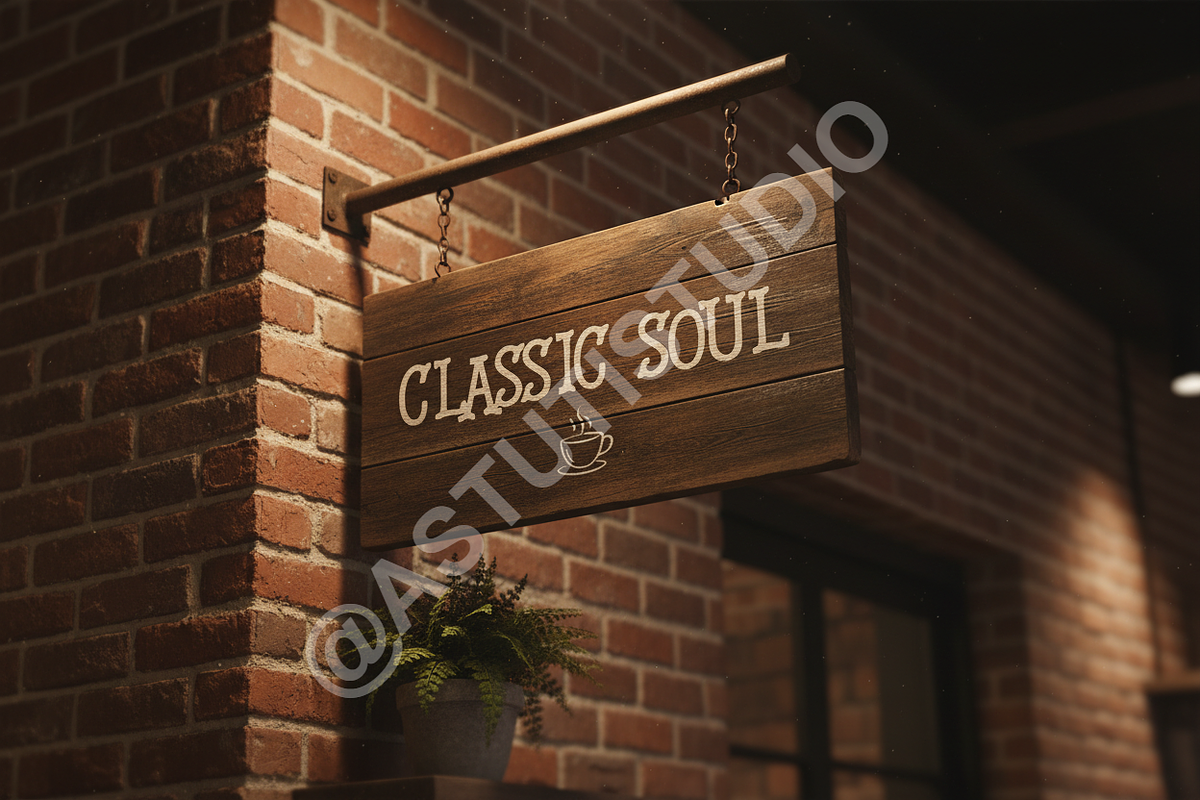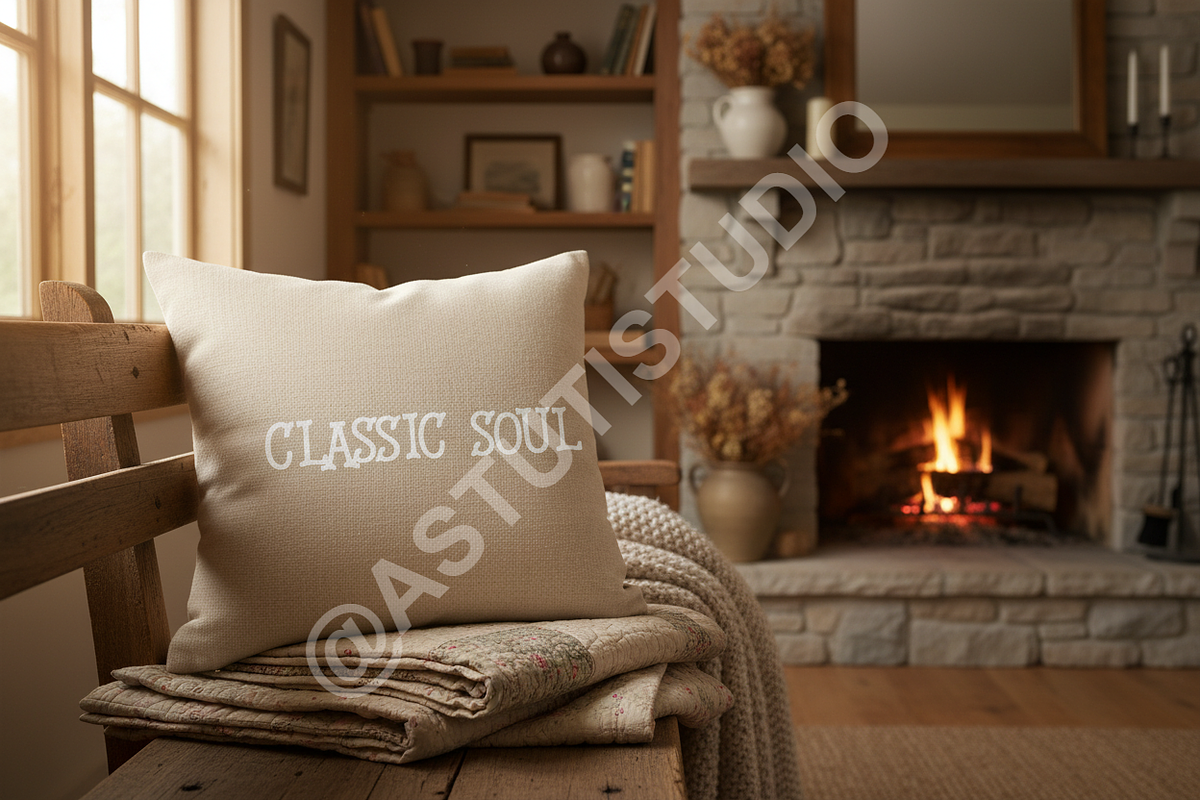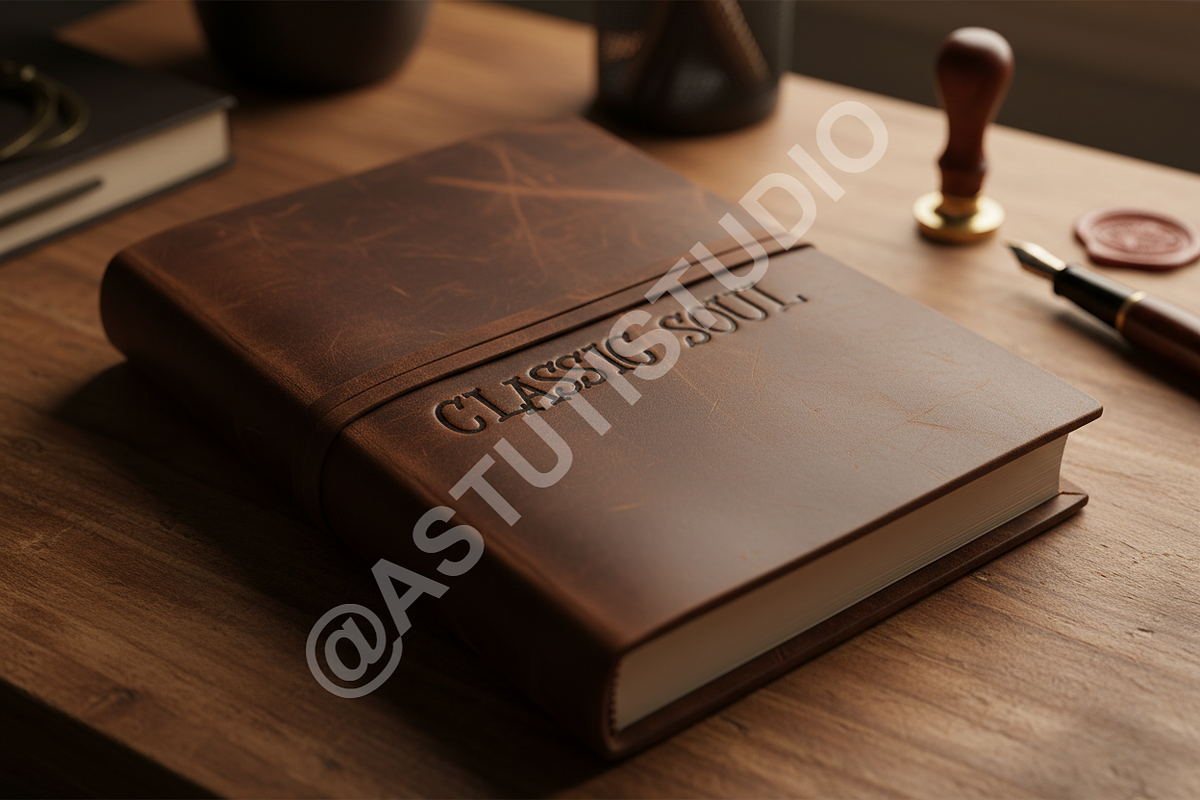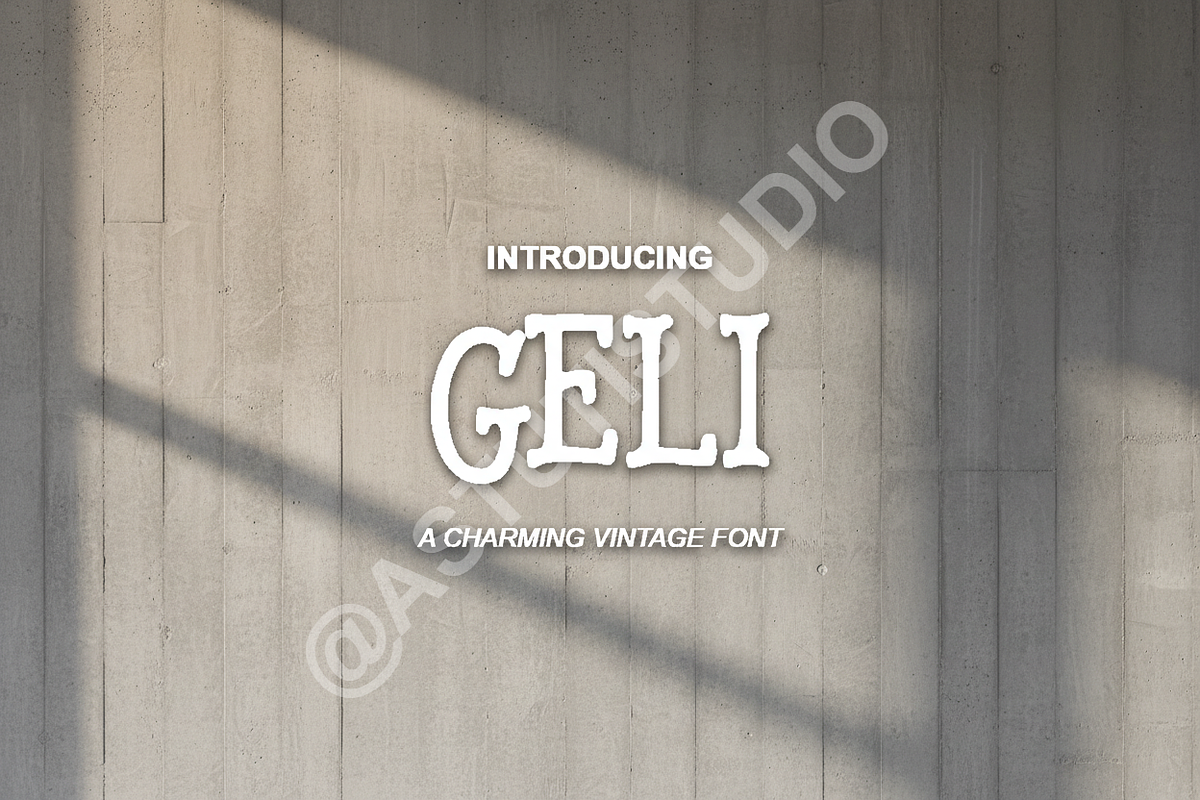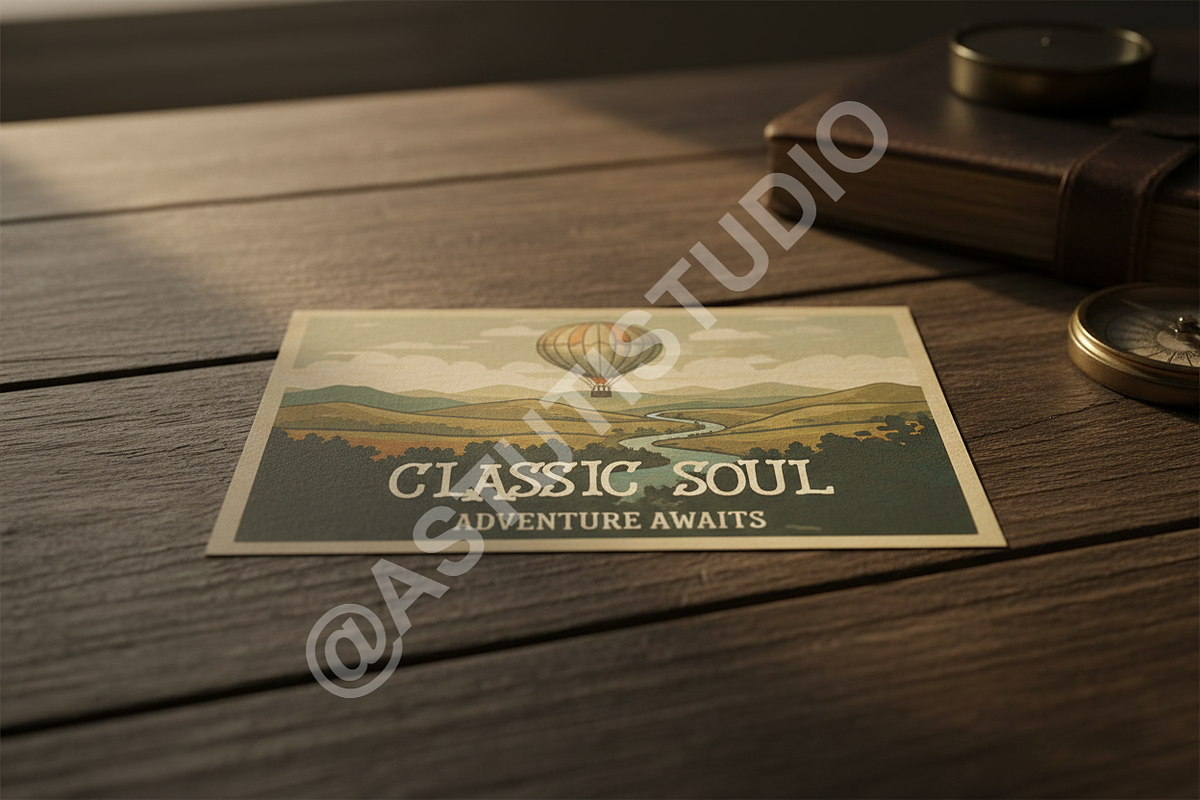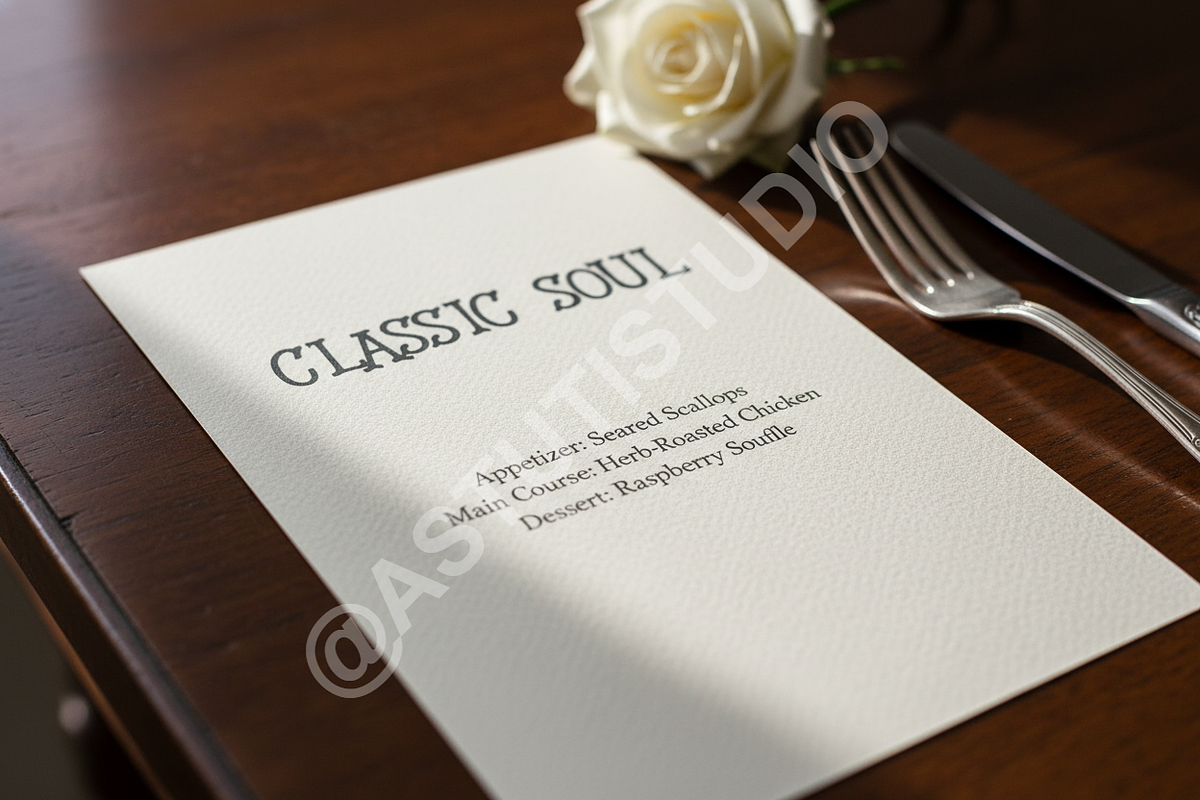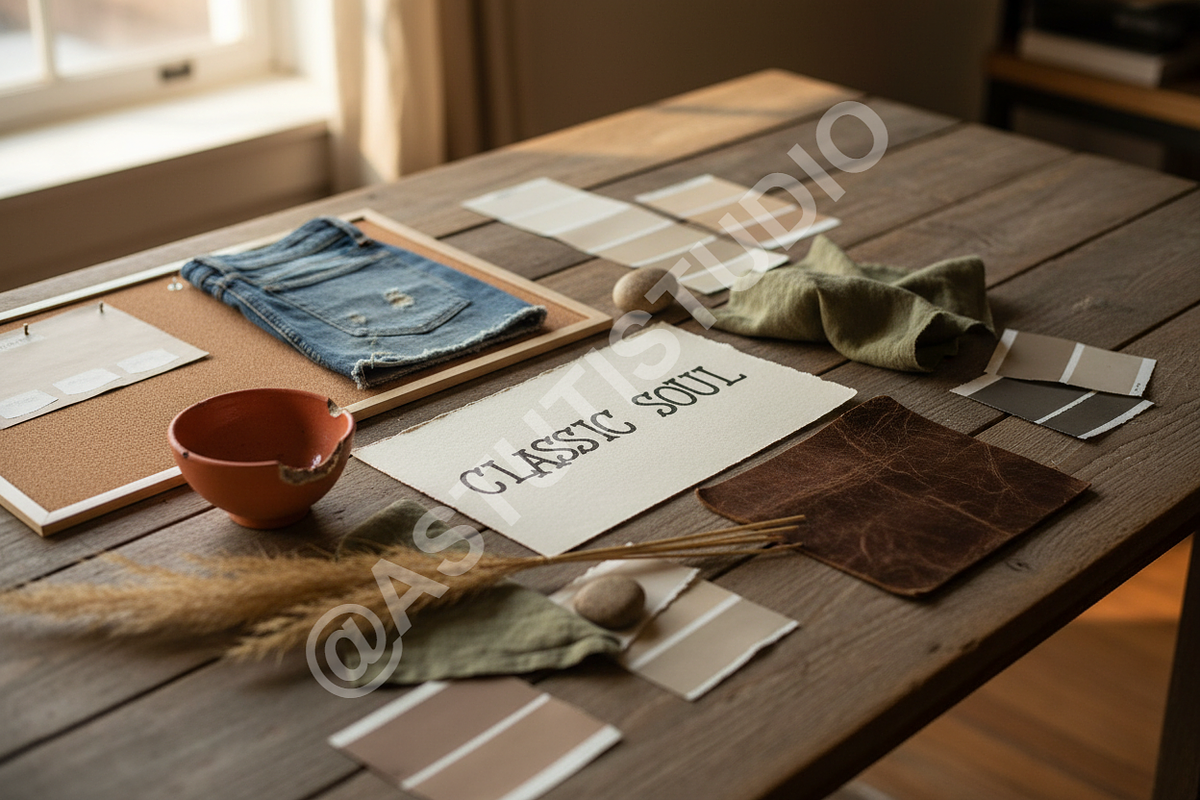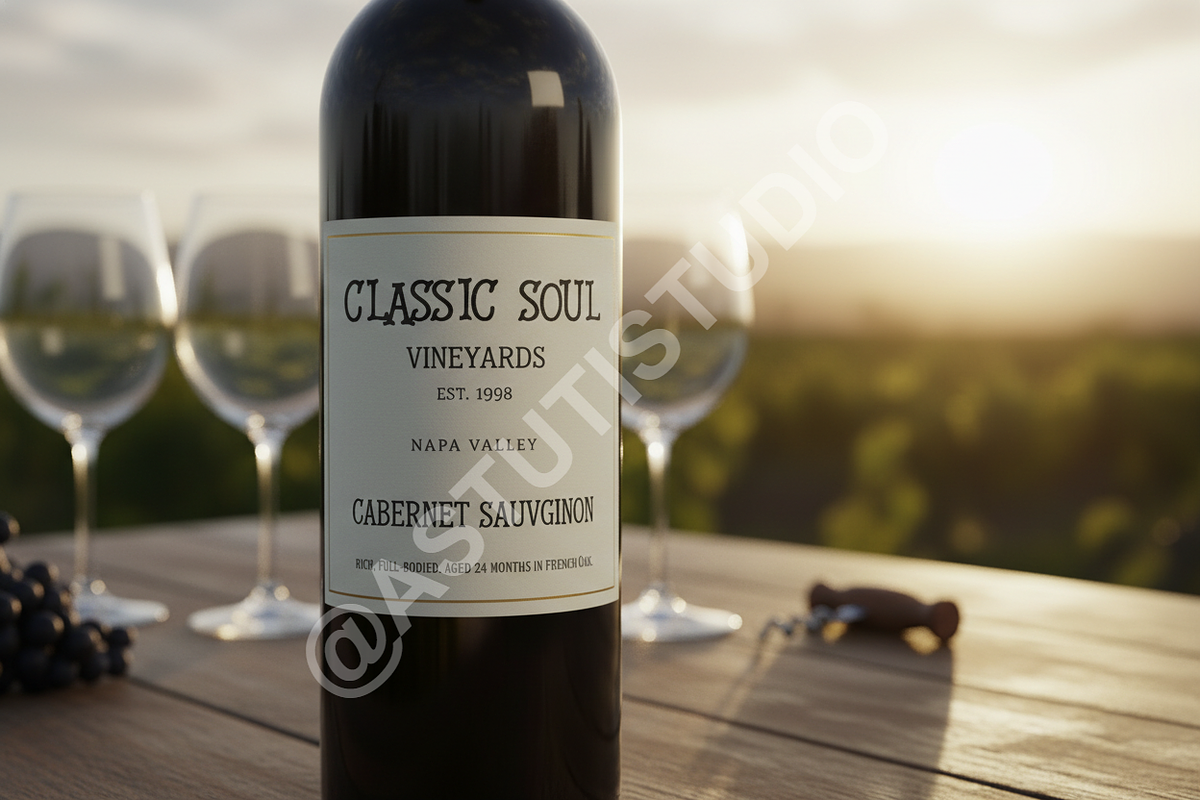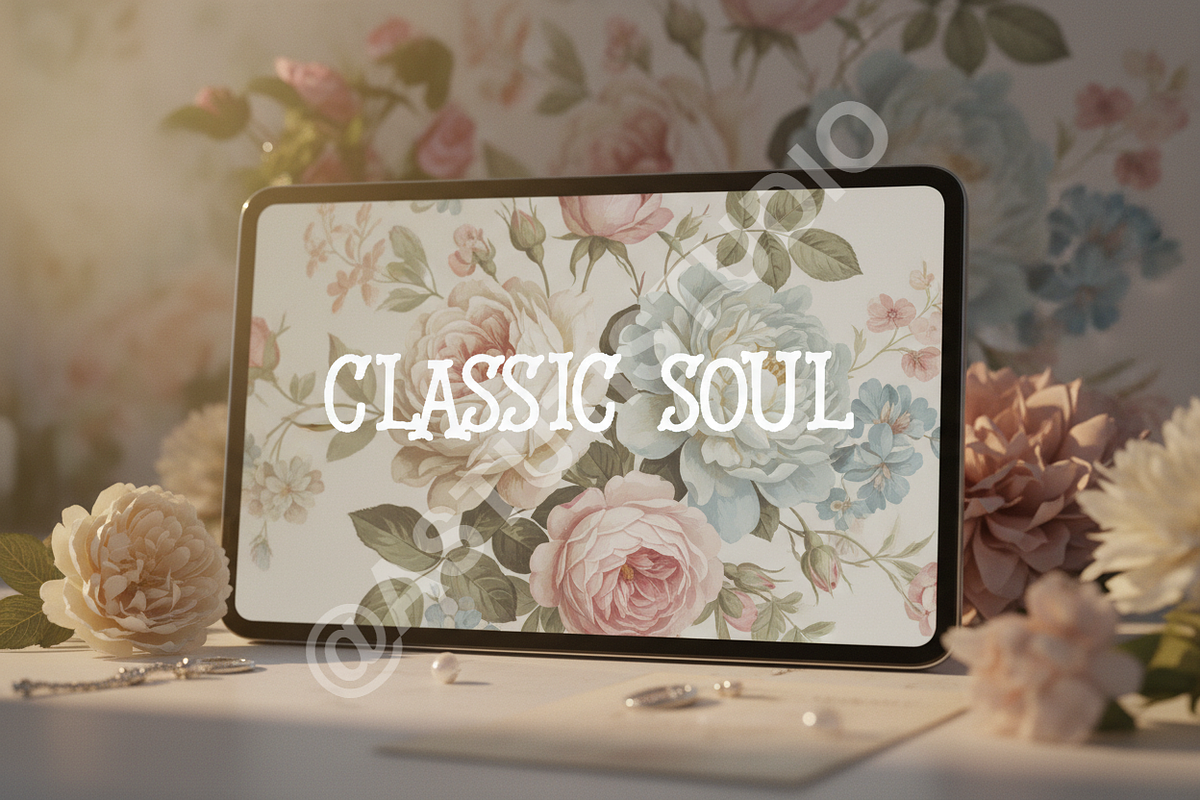
Geli - Premium High-Contrast Editori
Introducing Geli, a definitive typeface meticulously crafted for sophistication and presence. Geli seamlessly merges classic high-contrast proportions with sharply executed modern detailing, creating a profound visual experience that elevates any design project from ordinary to iconic. It is the essential choice for creatives requiring a touch of established luxury and uncompromising contemporary refinement.
--- Essential Features ---
- Opentype Functionality: Includes a comprehensive suite of ligatures, discretionary alternates, and stylistic sets for professional typesetting.
- Multilingual Support: Extensive glyph coverage supporting all major European languages.
- High-Contrast Structure: Designed specifically for maximum impact in large editorial headlines and display applications.
- Optimized Kerning: Precisely tuned for flawless legibility across digital and print media.
--- Perfect Applications ---
- Luxury Branding and Identity Systems
- High-End Magazine and Editorial Layouts
- Elegant Packaging Design
- Sophisticated Social Media Graphics
- Corporate Communications and Annual Reports